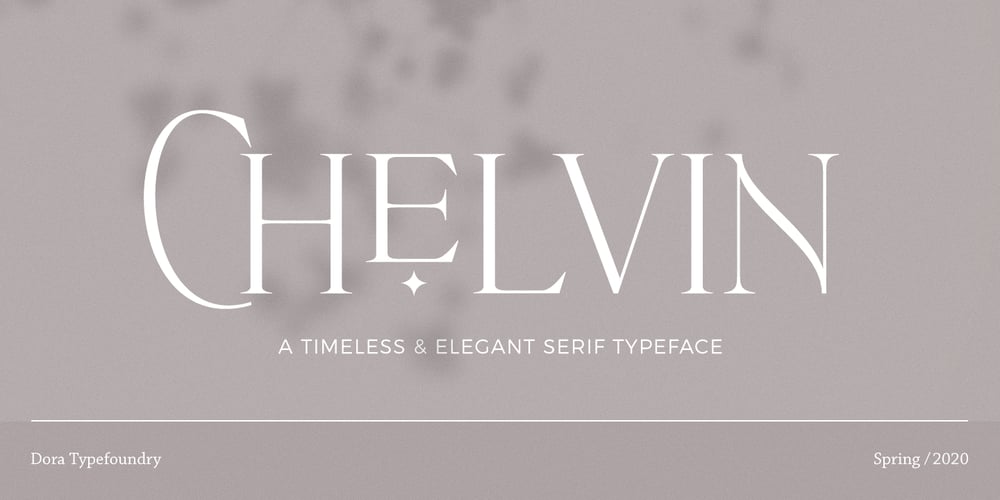
Chelvin Serif Font Family was designed by Zahratul Laila and published by Dora Typefoundry. Chelvin Serif contains 2 styles and family package options. Chelvin – is a strong neoclassical serif font family with high contrast, cool, stylish and unique looks with alternative fonts, Ligatures and multilingual support.This font idea has a wide range of references, from vintage to classic to the modern era, making it the perfect typeface for an understated, modern, and sophisticated look. all forms of beauty and luxurious ligature suitable for brands and designs. Chelvin’s wide selection of changing styles and ligatures makes this serif font incredibly versatile. Use Chelvin for your branding, magazine design, logo design, headlines, posters, packaging, cards or wedding invitations.Chelvin includes two styles (Standard / Italic) which each include 114 glyphs. OpenType features include 53 standard ligatures and a small number of character variants, and multilingual support (including multiple currency symbols).Features:• 2 Font weight• Uppercase & Lowercase• Alternative & Ligature Styles• Numbers & Punctuation• Characters with accents• Supports Multiple LanguagesI can’t wait to see what you do with Chelvin! Feel free to use the #Dora Typefoundry tag and the # Chelvin Serif font to show what you’ve been up to!